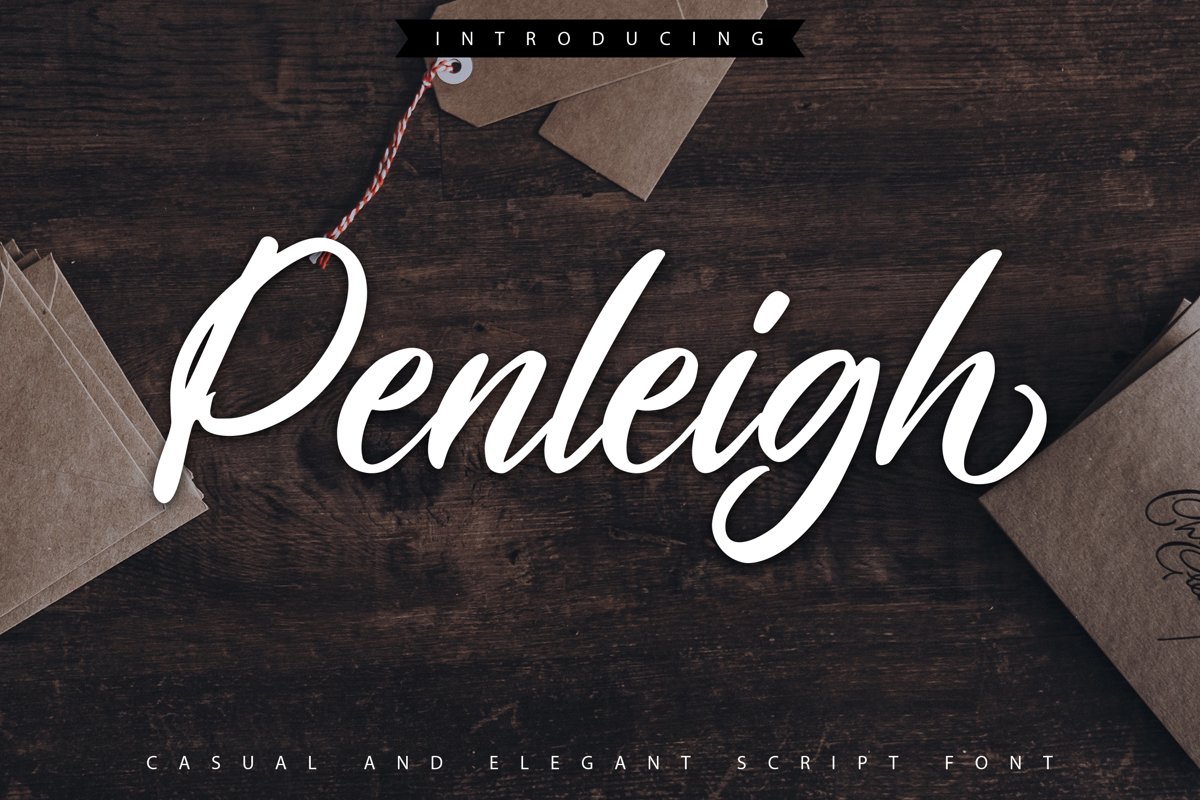
Penleigh | Casual & Elegant Script Font
Penleigh
**Penleigh | Casual & Elegant Script Font** with a calligraphy style, So beautiful on invitation like greeting cards, branding materials, business cards, quotes, posters, and more!
* Tons of glyphs
* Alternates and Ligatures
* Fonts include **Multilingual Support**